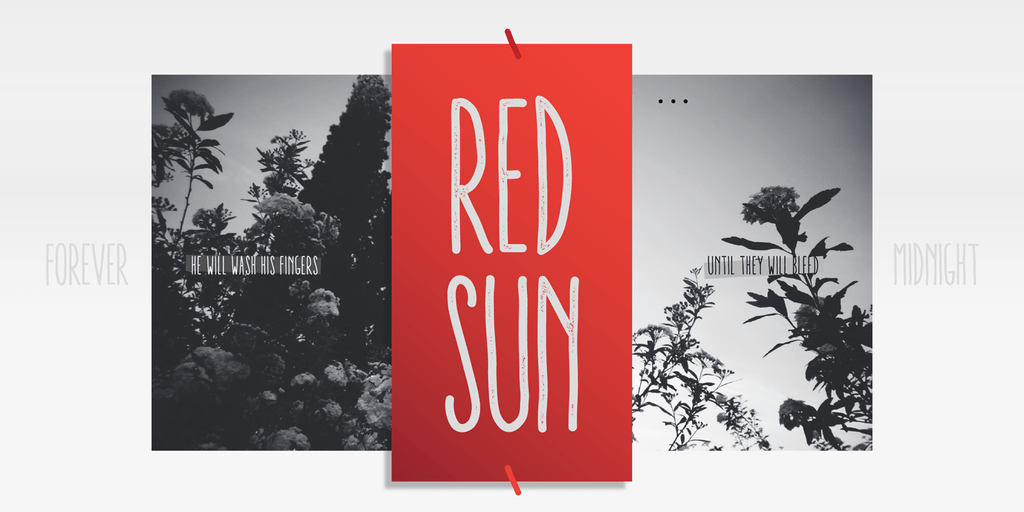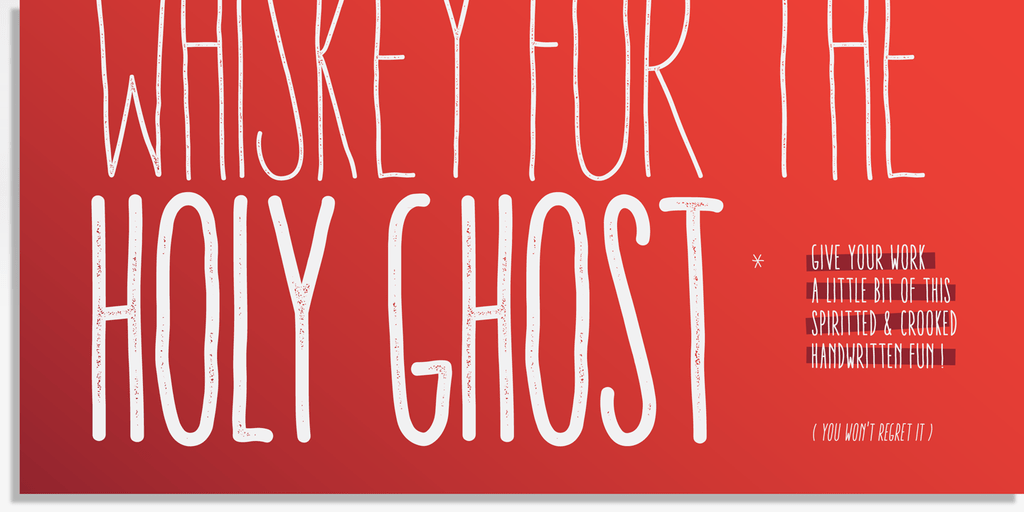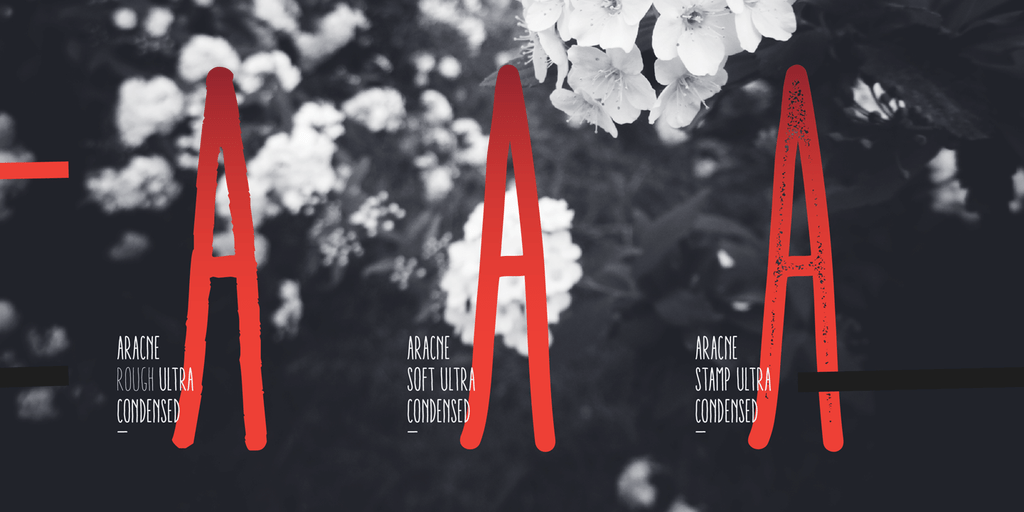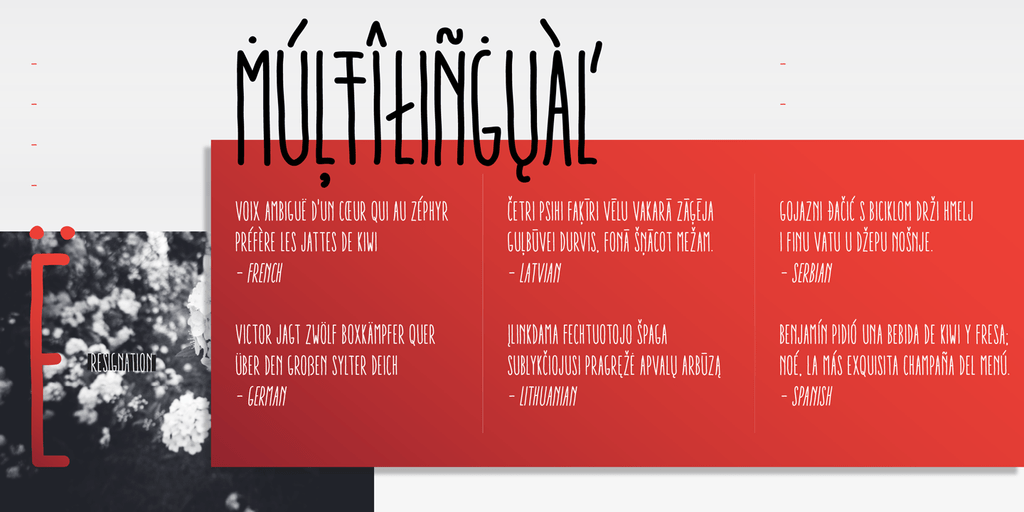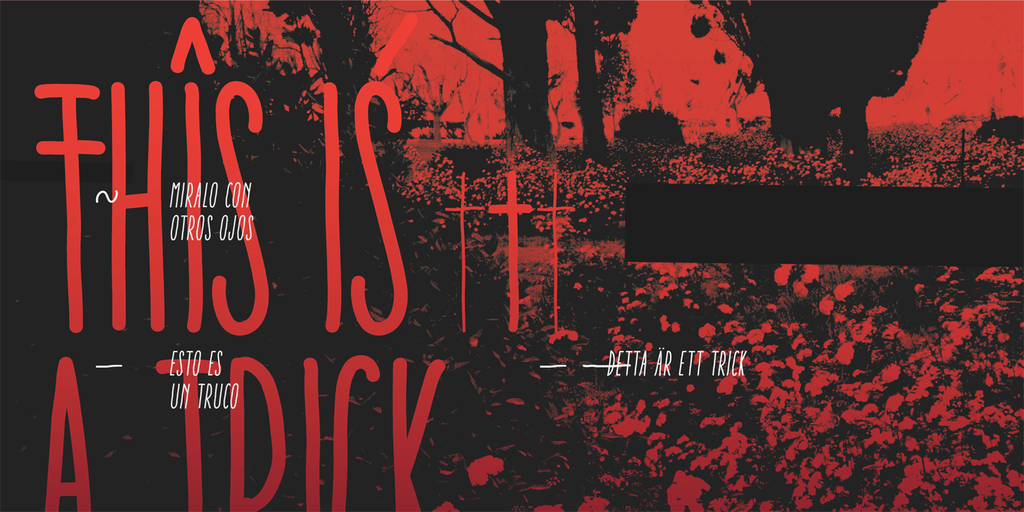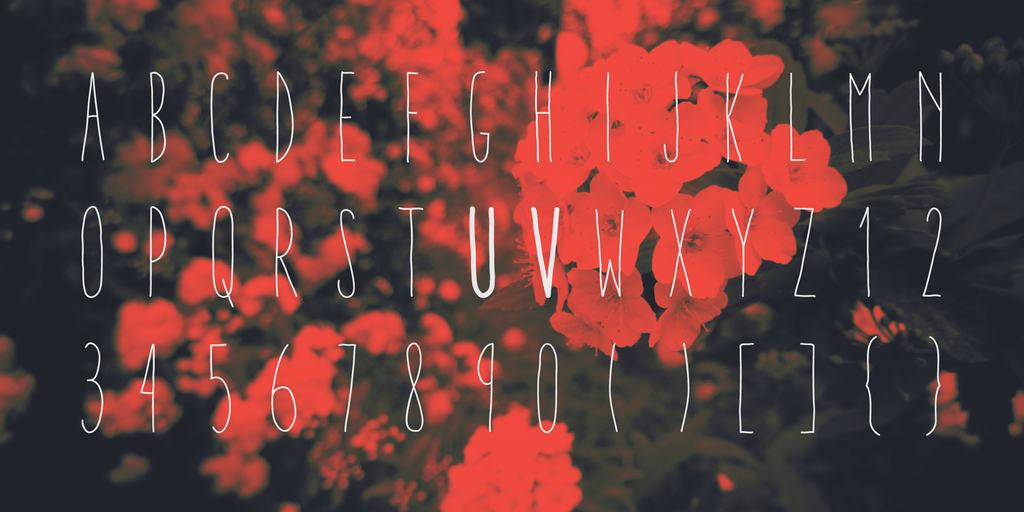
About Aracne Ultra Condensed
The all-caps Aracne collection features tall, slightly scrawled letterforms, and is available in regular, condensed and ultra condensed styles for maximun functionality. With a spiritted quality and casual character, it will add a personal style to your…